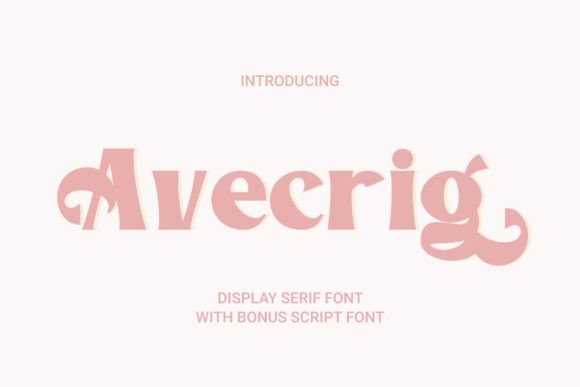
Step into the realm of sophistication and style with Avecrig Font, a breathtaking serif creation by Rvandtype. This font exudes elegance and coolness, making it the perfect partner for your creative endeavors. Let Avecrig Font elevate your logos, branding, invitations, stationery, wedding designs, and social media posts to new heights.
With its timeless beauty, Avecrig Font effortlessly adds a touch of class and refinement to any project. Its sharp serifs and graceful curves create a visually stunning aesthetic that commands attention. Whether you're a seasoned designer or just starting, Avecrig Font makes it easy to create designs that leave a lasting impression.
Unleash your creativity and explore the endless possibilities Avecrig Font offers. From classic and timeless designs to modern and cutting-edge projects, this font seamlessly adapts to your vision. Whether you're creating a striking logo that exudes professionalism or a wedding invitation that radiates elegance, Avecrig Font is your trusted companion.
Don't settle for ordinary fonts that blend into the background. Embrace the power of Avecrig Font and let your designs shine. Its versatility knows no bounds, making it the perfect choice for a wide range of projects. Experiment with different styles, colors, and compositions to discover the endless possibilities that await you.